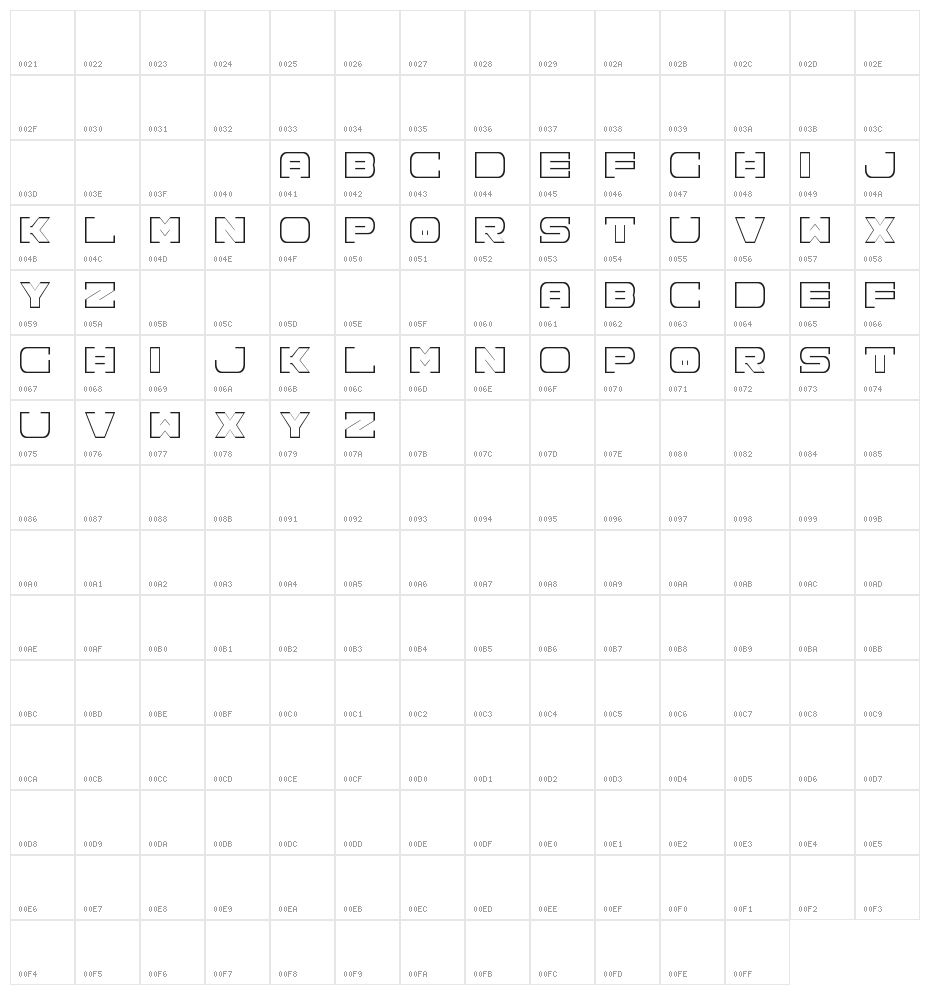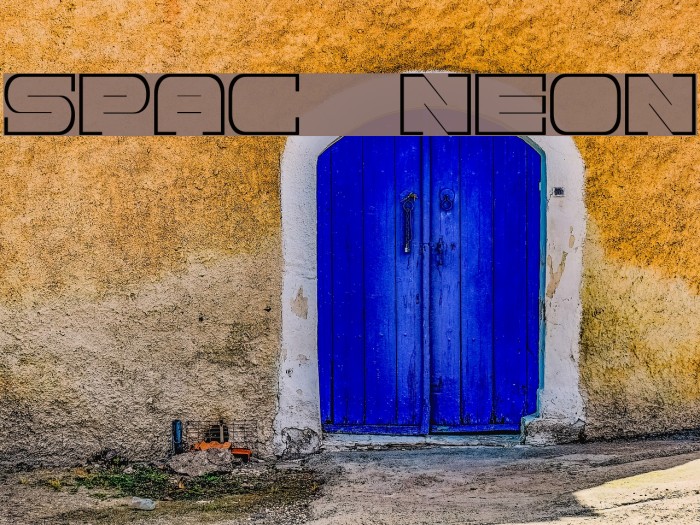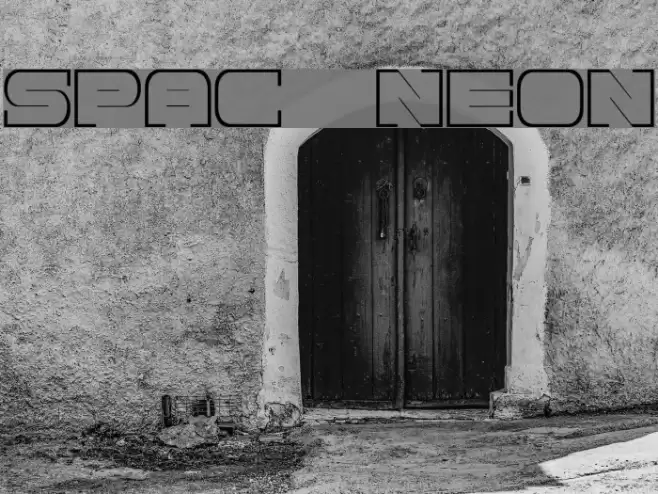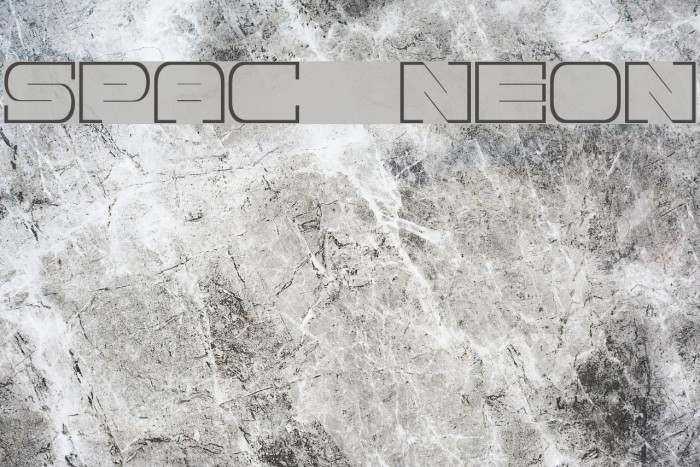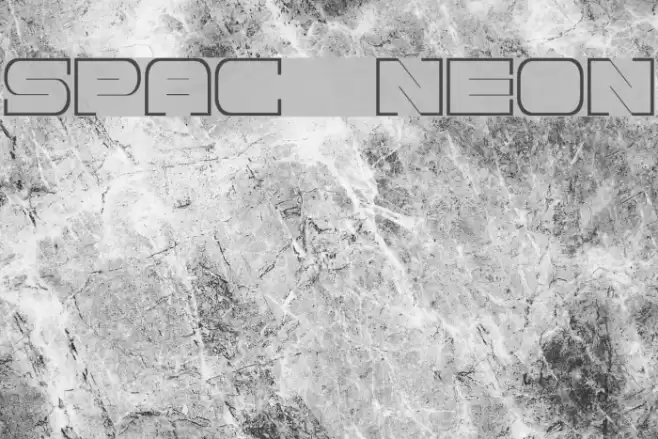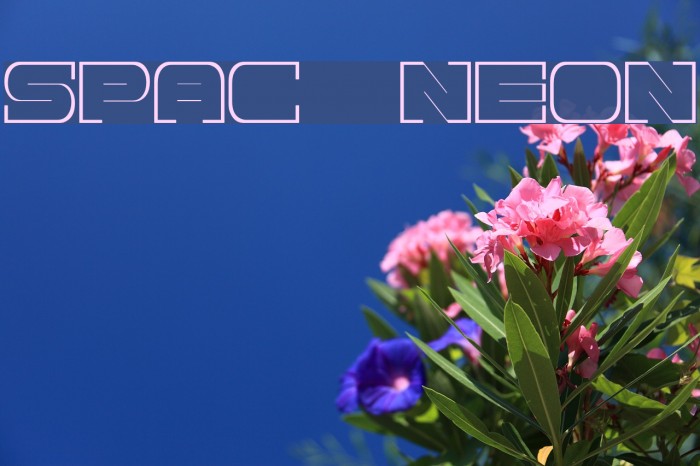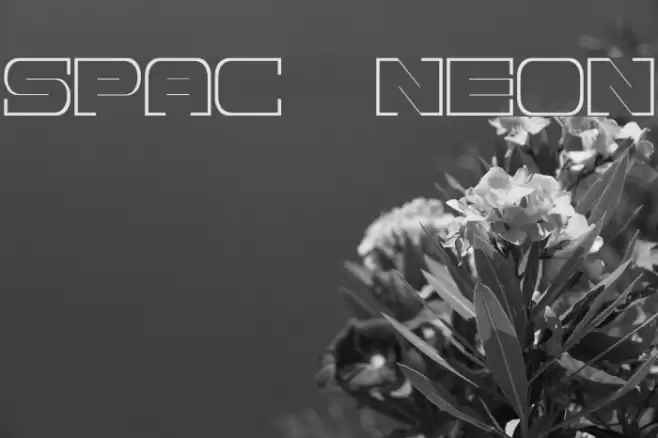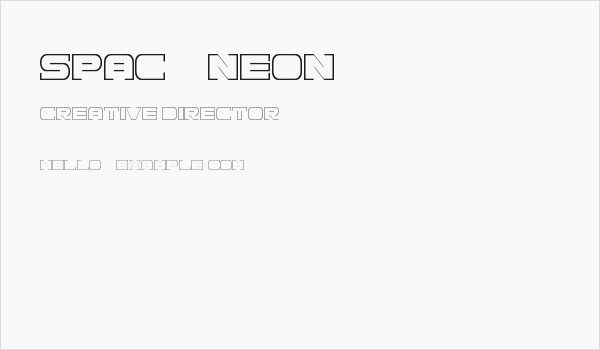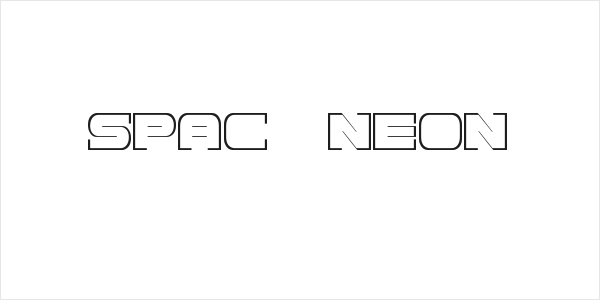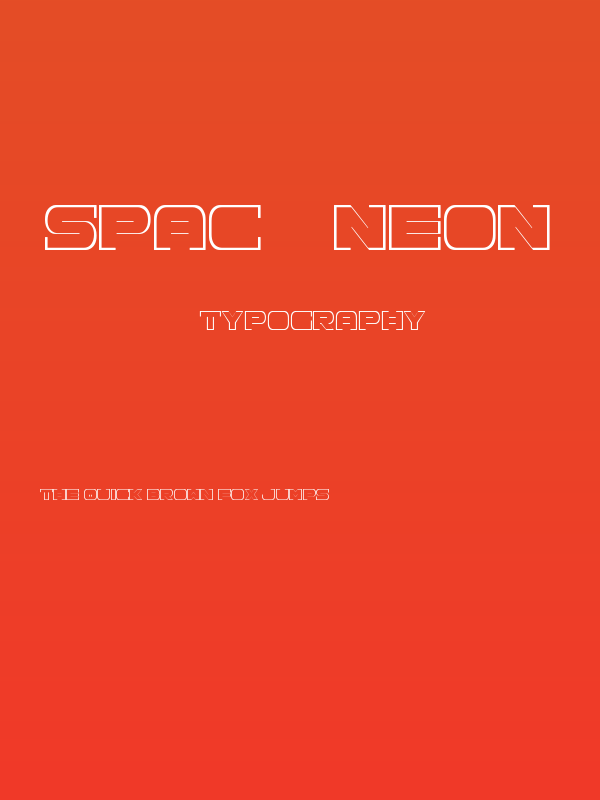
Spac3 neon Font
Spac3 neon Description
This font features a futuristic and geometric design, characterized by its bold and angular letterforms. The characters are constructed with clean, straight lines and sharp edges, giving it a modern and technological appearance. The font's structure is consistent, with each letter maintaining a uniform height and width, contributing to its cohesive and organized look. The spacing between characters is tight, enhancing its compact and efficient style. This font is ideal for projects that require a contemporary and cutting-edge aesthetic, such as technology branding, sci-fi themed designs, or digital interfaces.
| Proposed Projects | Ideal for technology branding, sci-fi themed designs, digital interfaces, and modern advertising. |